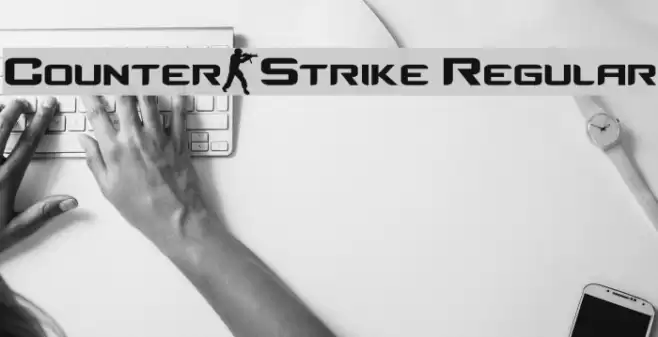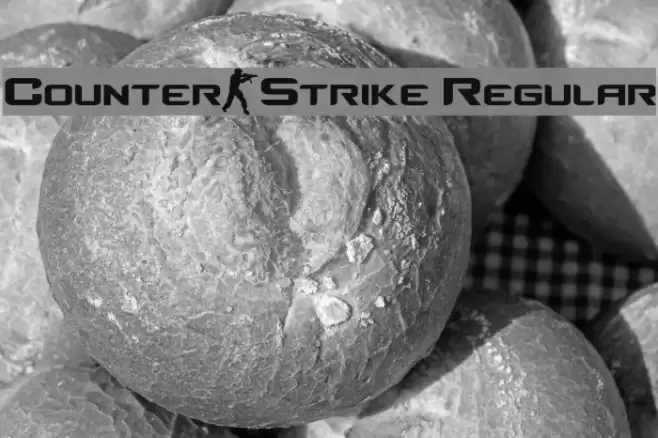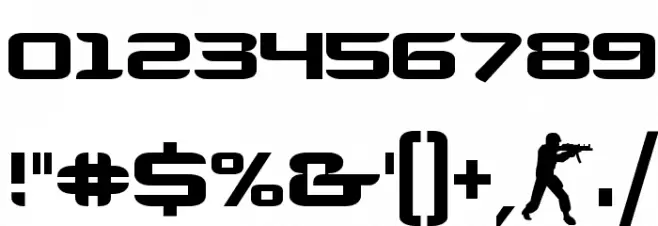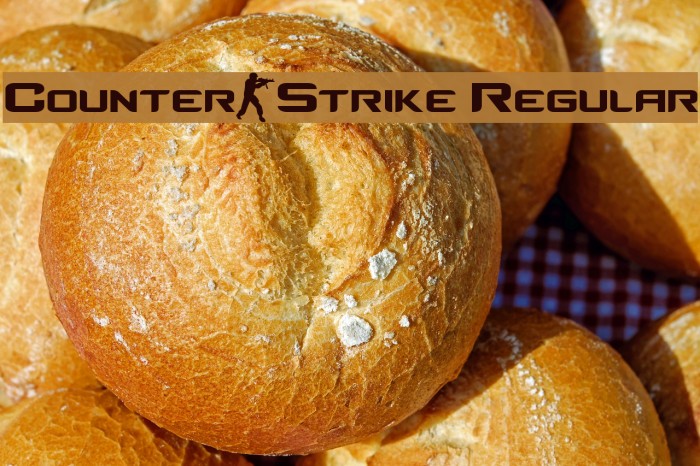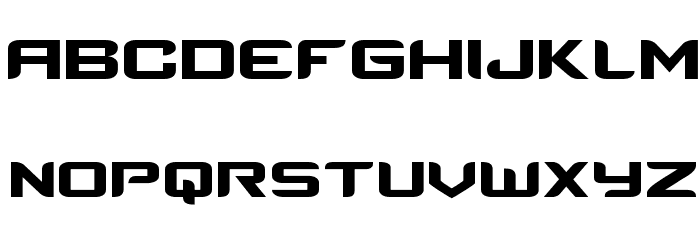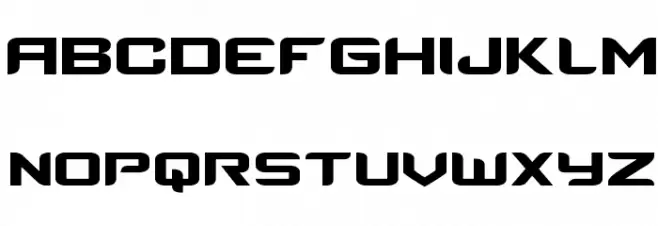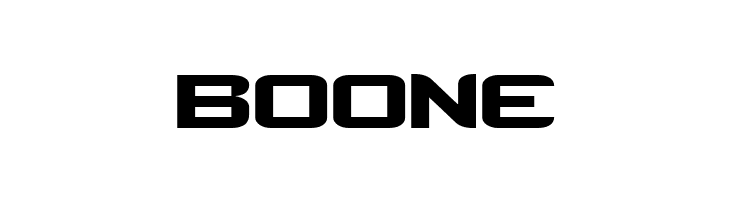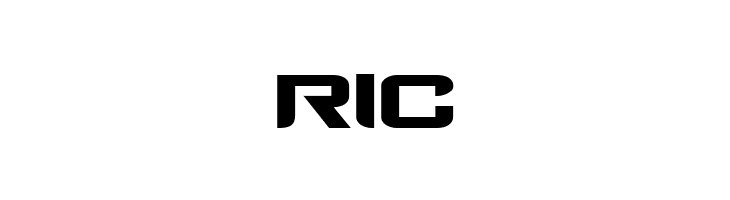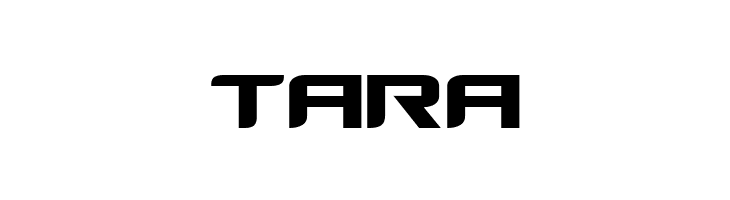
Counter-Strike Regular Font
Counter-Strike Regular Description
This font features a bold, futuristic design with a strong geometric influence. The characters are wide and have a distinct blocky appearance, giving them a modern and tech-inspired look. The uppercase letters are particularly striking, with sharp angles and a consistent stroke width that conveys strength and stability. The lowercase letters maintain the same boldness, ensuring readability while preserving the overall aesthetic. Numbers and special characters are designed to match the bold style, making them suitable for impactful displays. The font's unique style is further emphasized by its uniformity and clean lines, making it ideal for projects that require a contemporary and assertive typeface.
A bold, futuristic font with a geometric and tech-inspired design from Uncategorized fonts.
- Proposed Projects: Ideal for video game graphics, tech branding, posters, and digital media.
- Width: Expanded